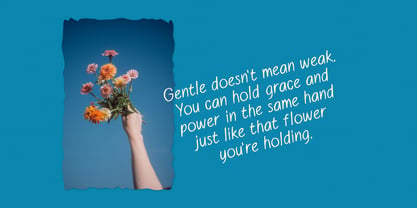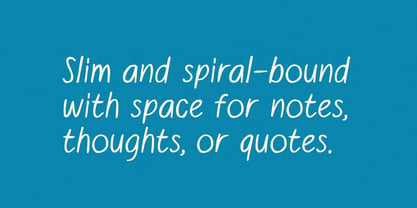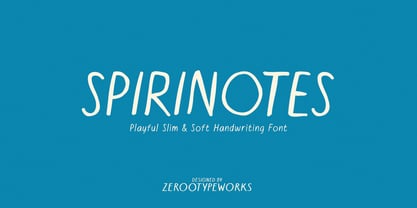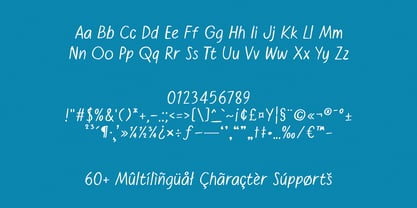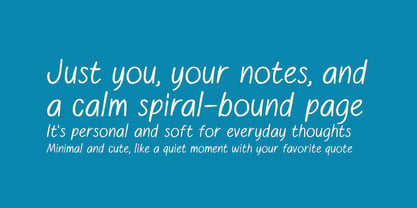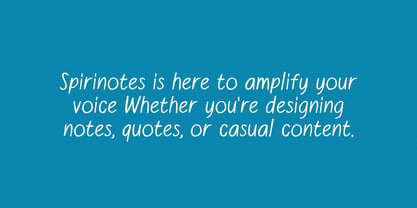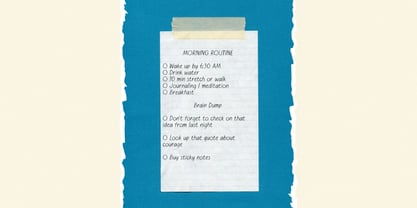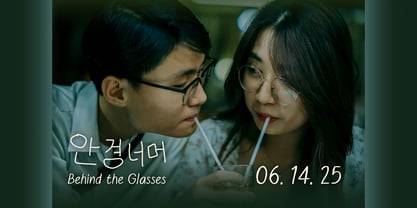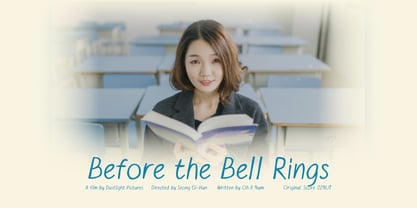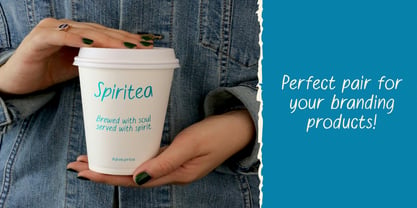
ZRTW Spirinotes
Die Schriftfamilie ZRTW Spirinotes wurde von Gumilang Anggara Ruslan entworfen und von Zerootypeworks veröffentlicht. ZRTW Spirinotes enthält 1 Stile. Mehr über diese Familie
Spirinotes is a lightweight and charming handwritten font with a casual twist perfect for adding a touch of playfulness and authenticity to your design. It mimics the natural rhythm of a handwritten spiral notebook, bringing warmth, clarity, and personality.
• Font style & energy: Whimsical, minimalist, youthful, handwritten
• Market vibe fit: Journals, study notes, YouTube thumbnails, Pinterest quotes, casual brand designs
• Letterform structure: Tall, slim, slightly curved handwritten sans-serif
• Best use cases:
• Bullet journals & daily planners
• Study-related social media content
• Educational YouTube or thumbnails
• Stationery, stickers, and doodle books
• Personal blogs, vlogs, and soft brand voice designs